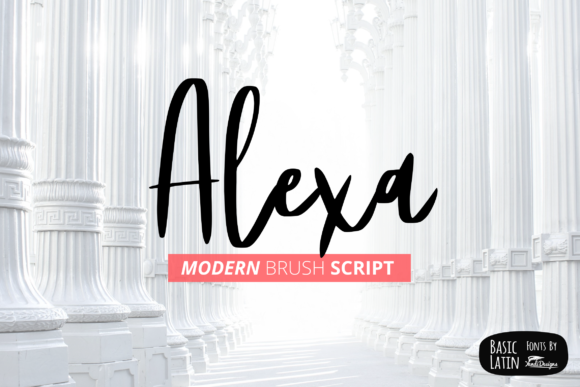
Alexa Font
About Alexa Font
Alexa is a modern handwritten brush font suitable for projects such as logos, book covers, t-shirt designs and much more.
Give your next design personality with this elegant and clean looking font.